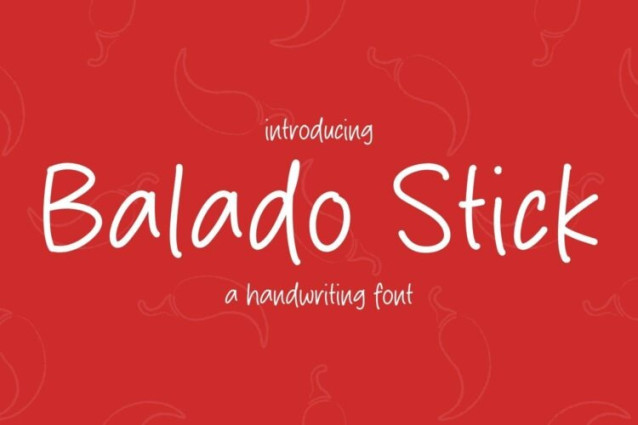
Balado Stick Font
Balado Stick Font is a simple and friendly handwritten font. Its natural and unique style makes it incredibly fitting to a large pool of designs. The only limit is your imagination!